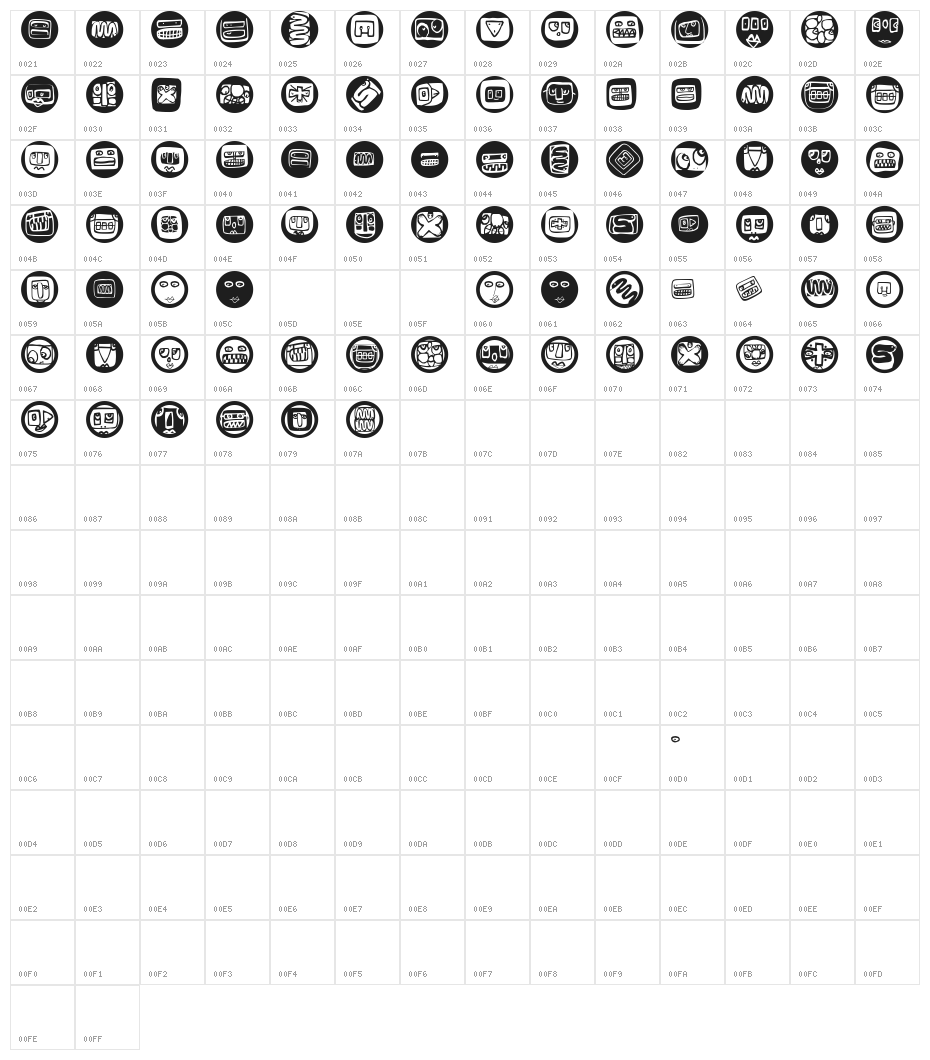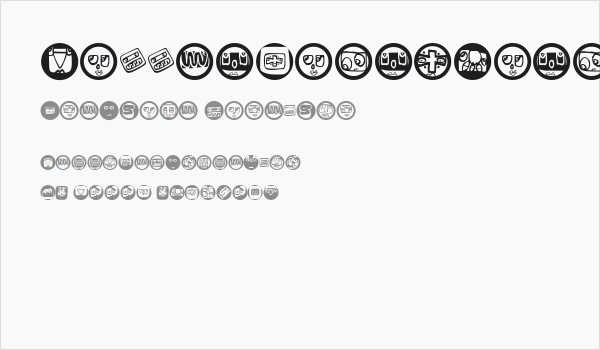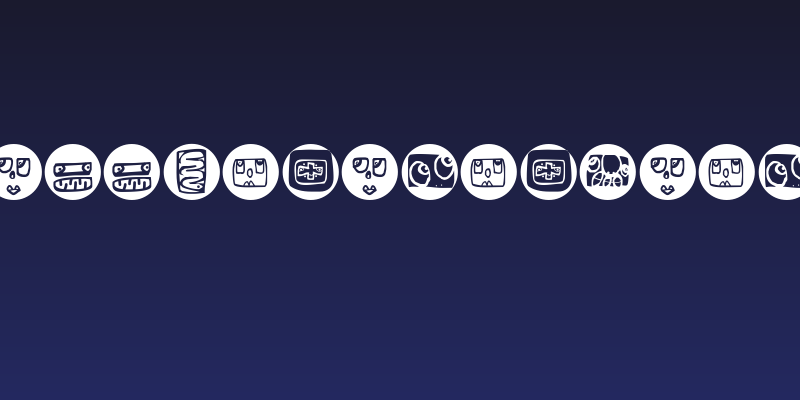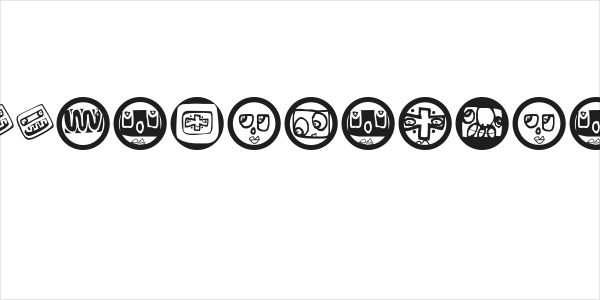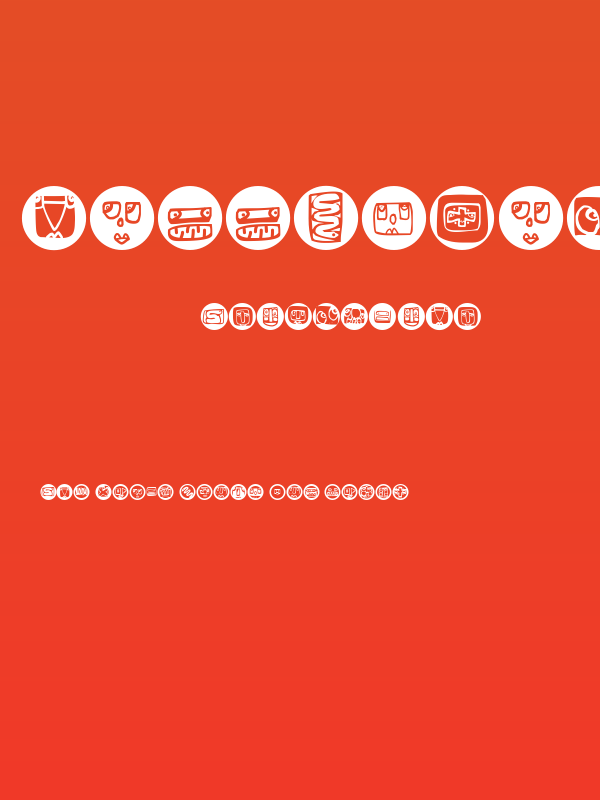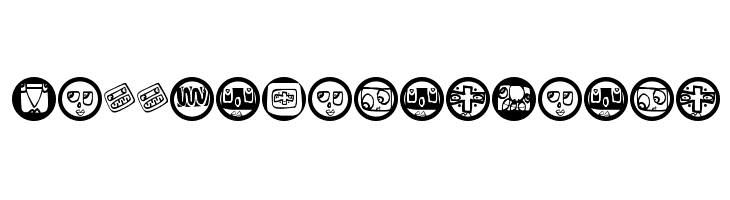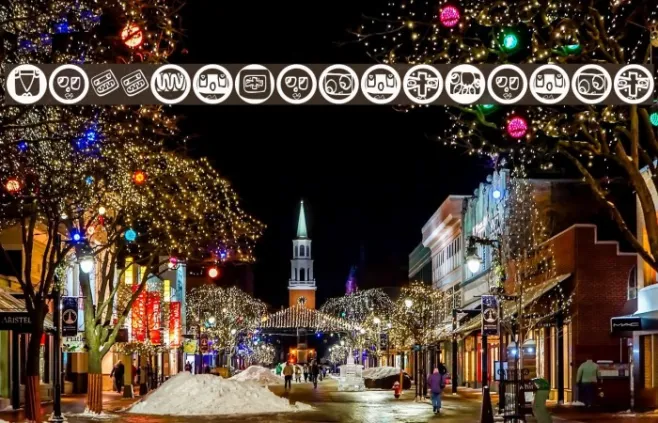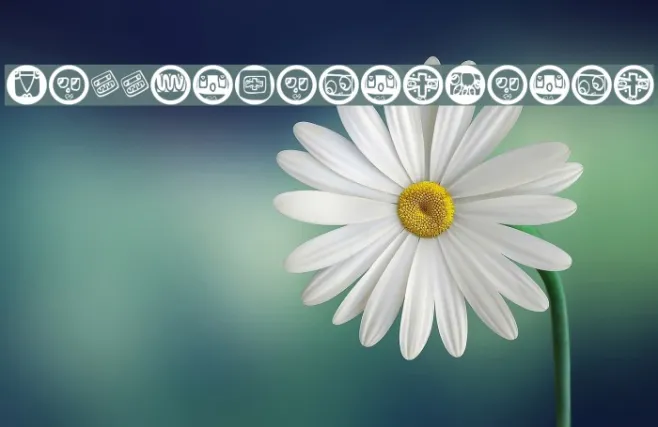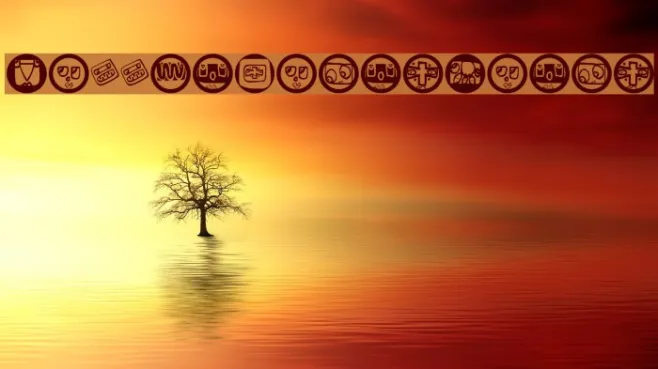
HiddenSignsRings Font
HiddenSignsRings Description
A highly decorative, pictographic font with each character enclosed in a bold black circle, featuring intricate, hand-drawn, glyph-like symbols reminiscent of ancient or tribal iconography. The forms are playful and abstract, with a mix of geometric and organic shapes, and significant visual variation between characters.
| Overall Style | Decorative, Ancient, Tribal, Playful |
| Use Case | Logos, Headlines, Posters, Themed graphics |
| Proposed Projects | Posters, album covers, branding for cultural or artistic events, themed games, escape rooms, or fantasy literature. |